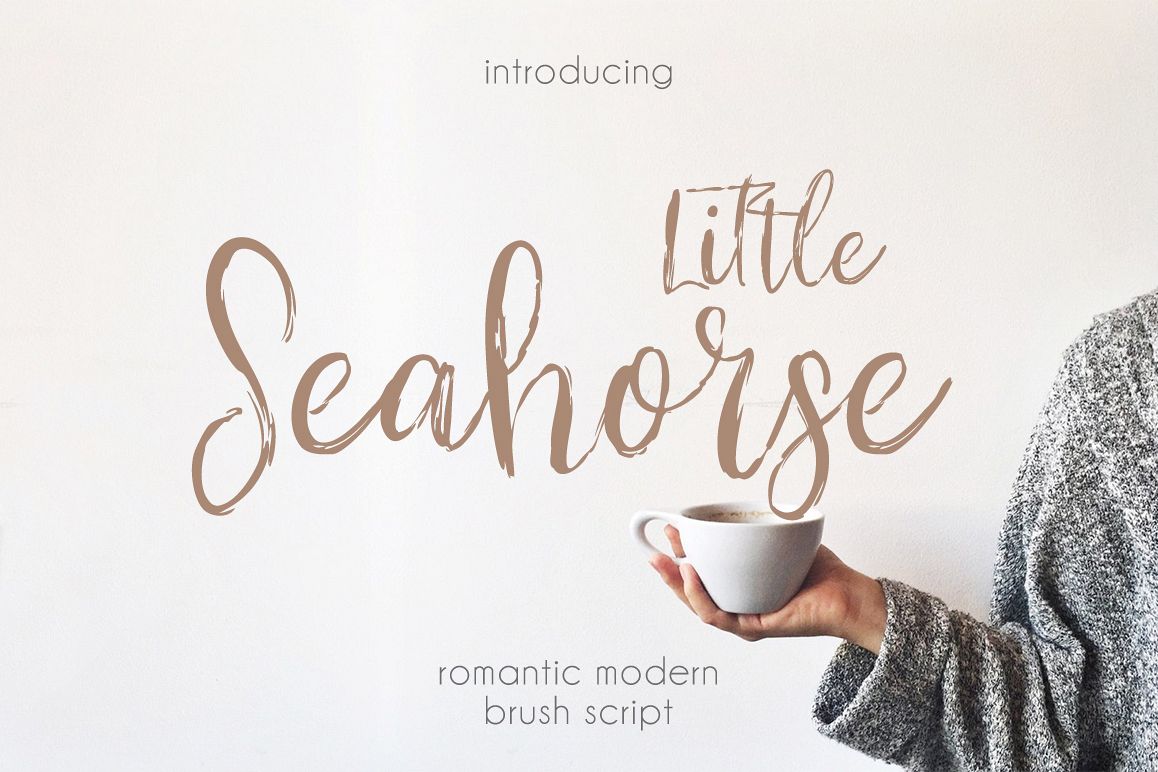
Little Seahorse
Little Seahorse Script
It's hand lettered romantic and modern brush script font. With this font I created an additional font that looks great in tandem. Also with this type, you will see a lot of interesting extras. This brush font is ideal for branding and decorate your any project.
Little Seahorse Script .